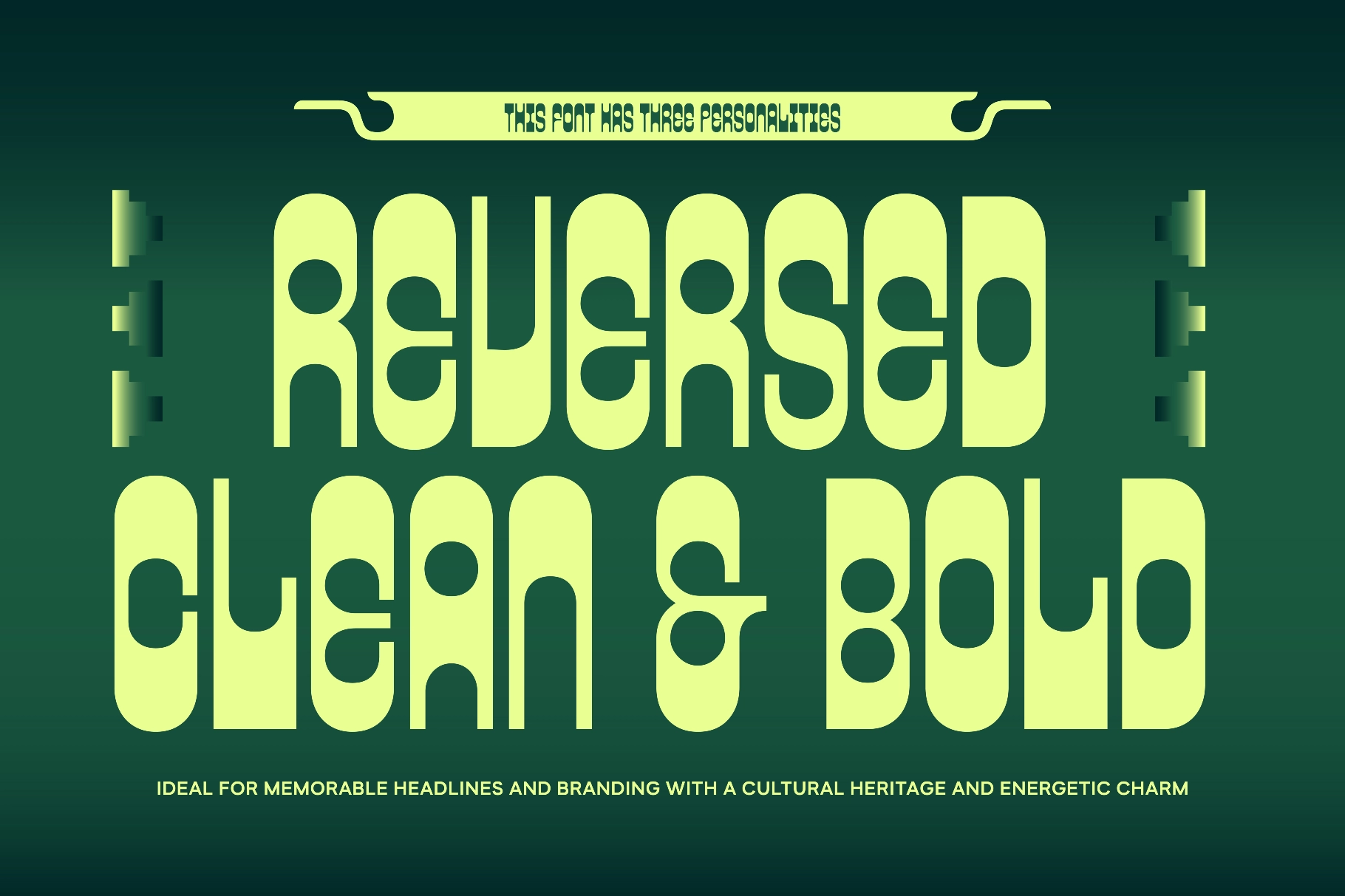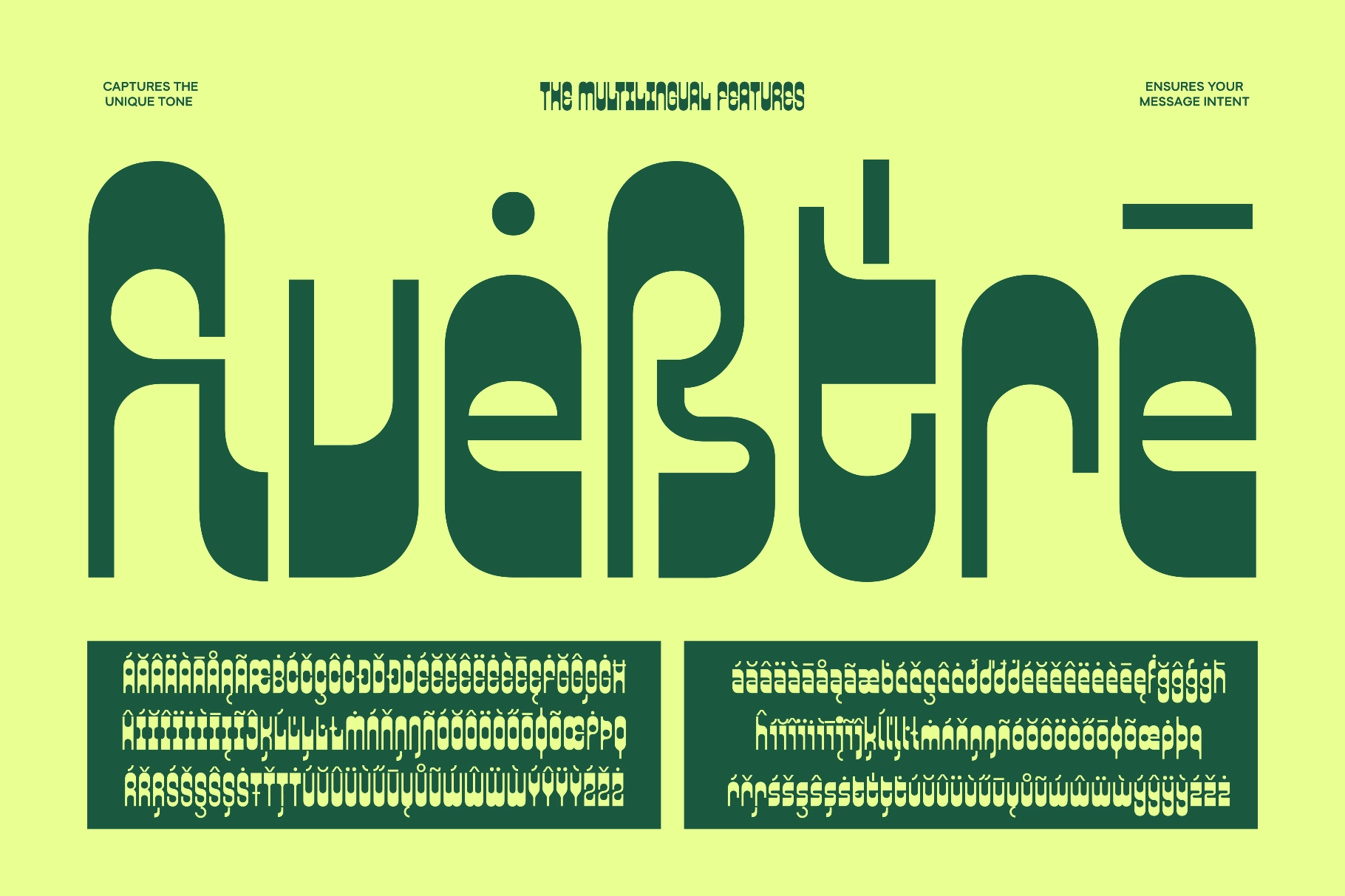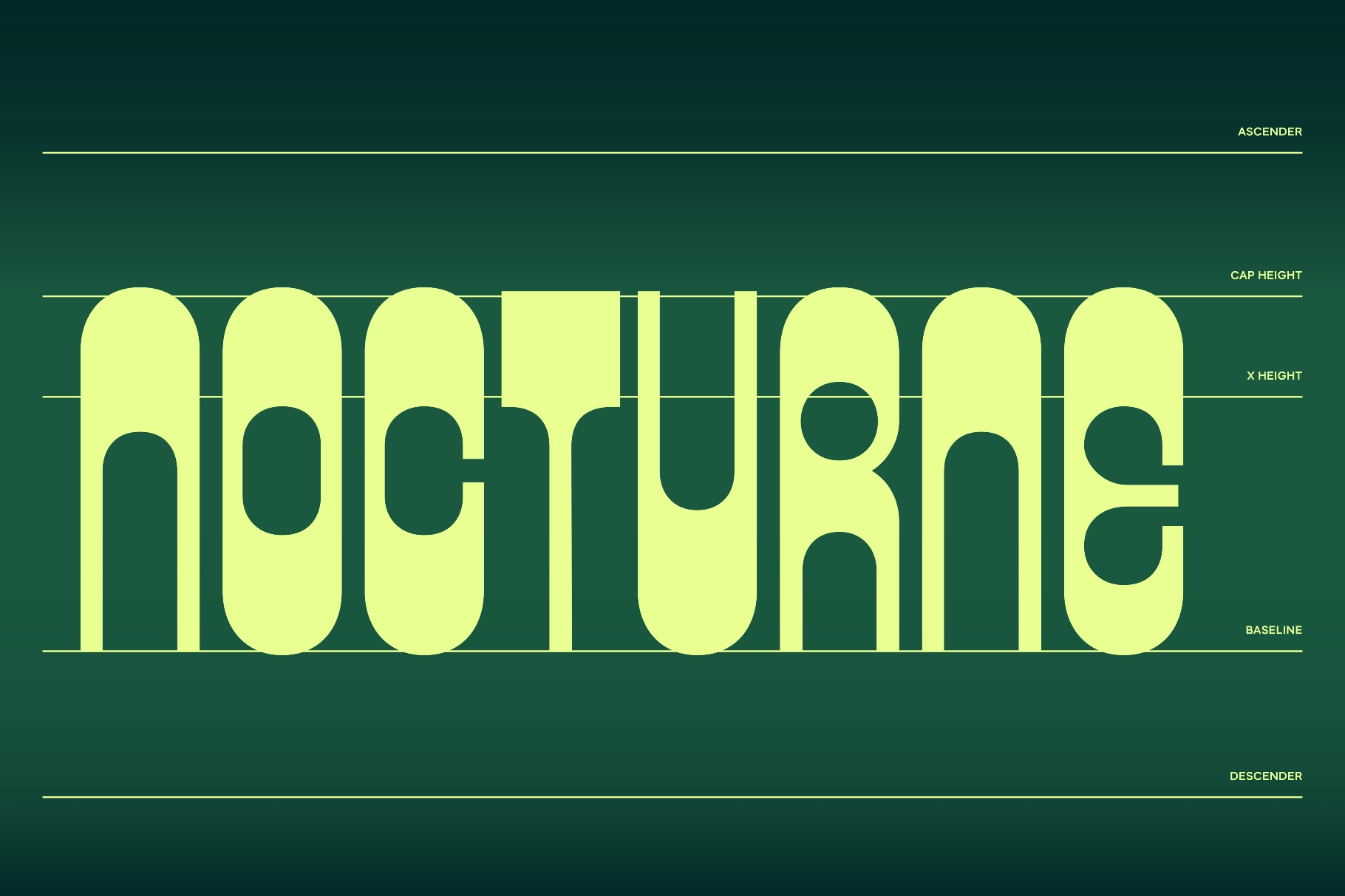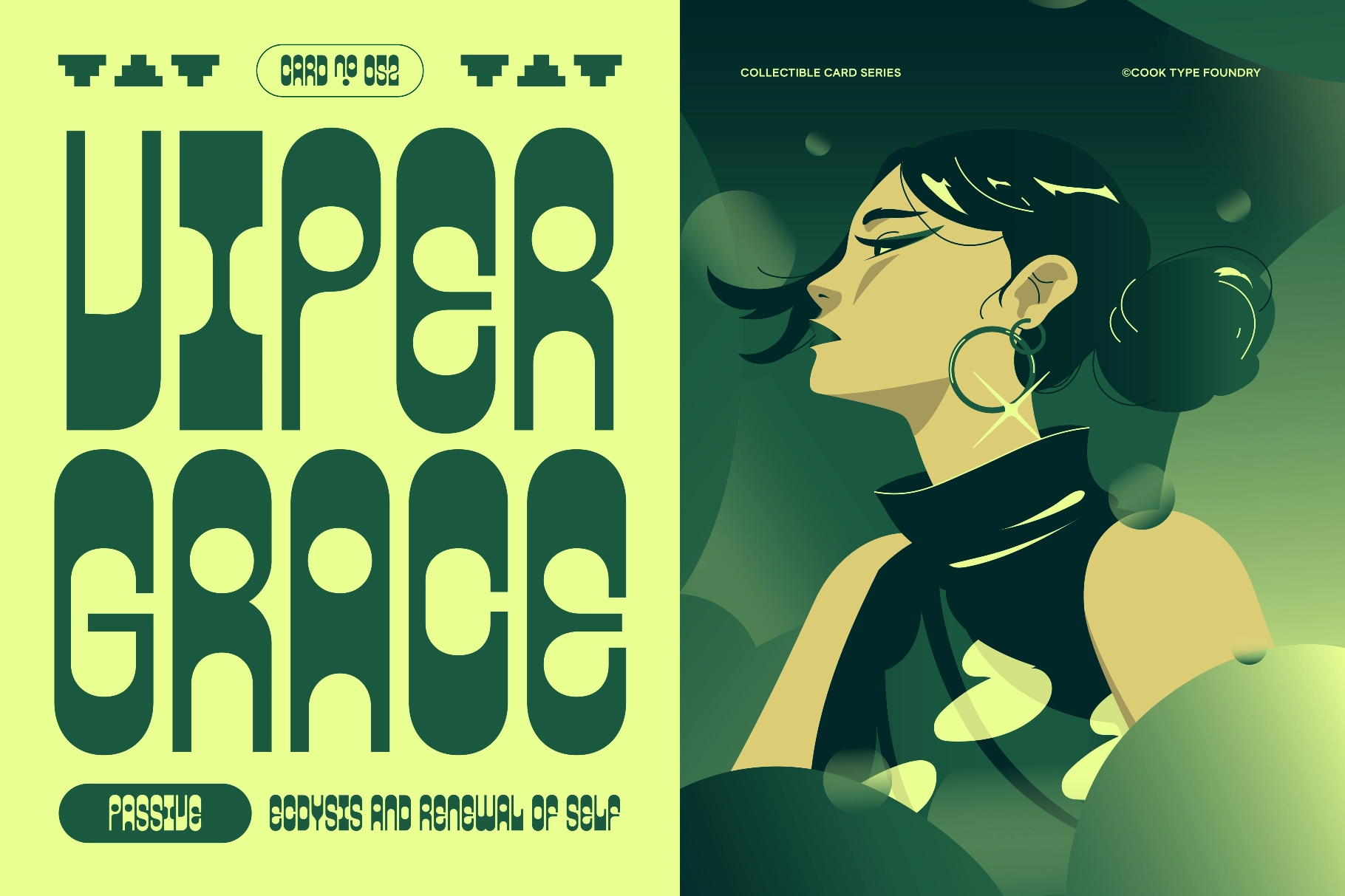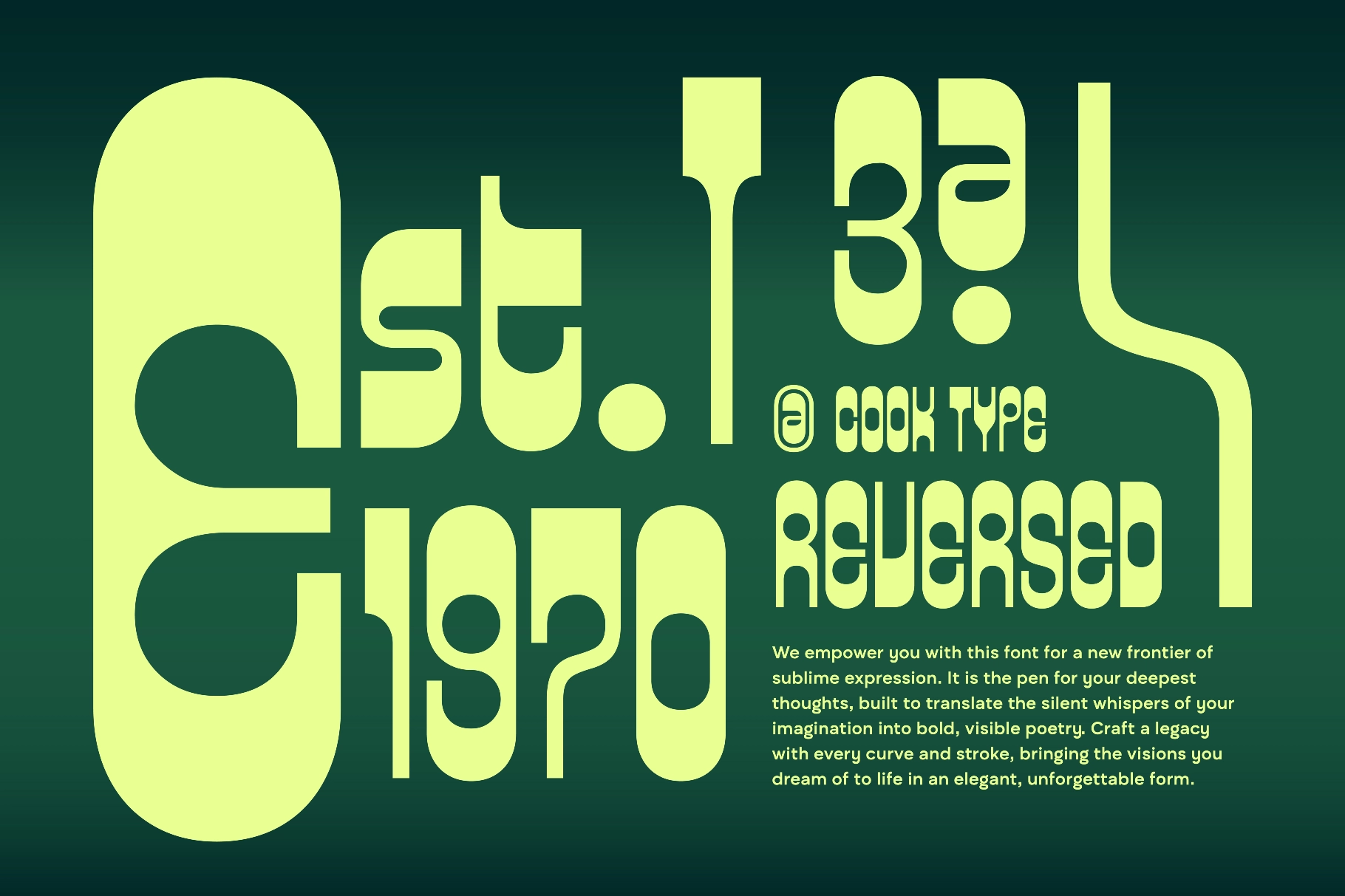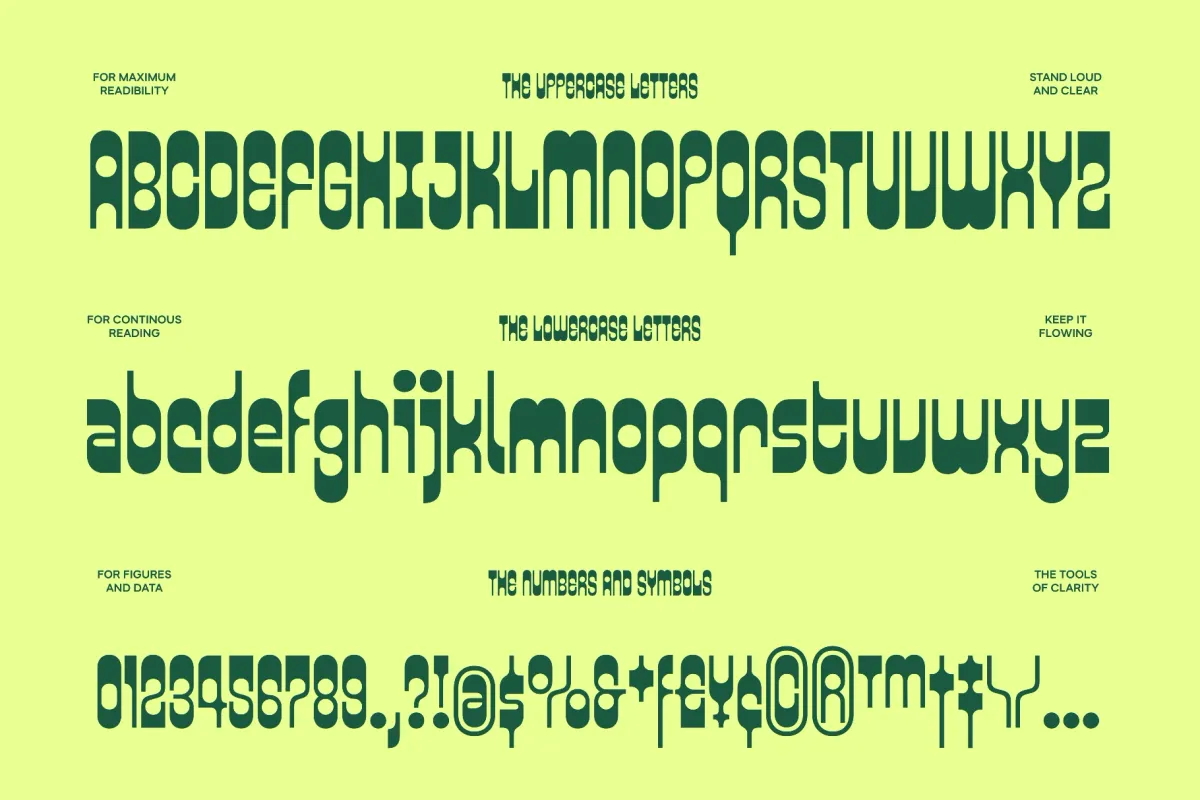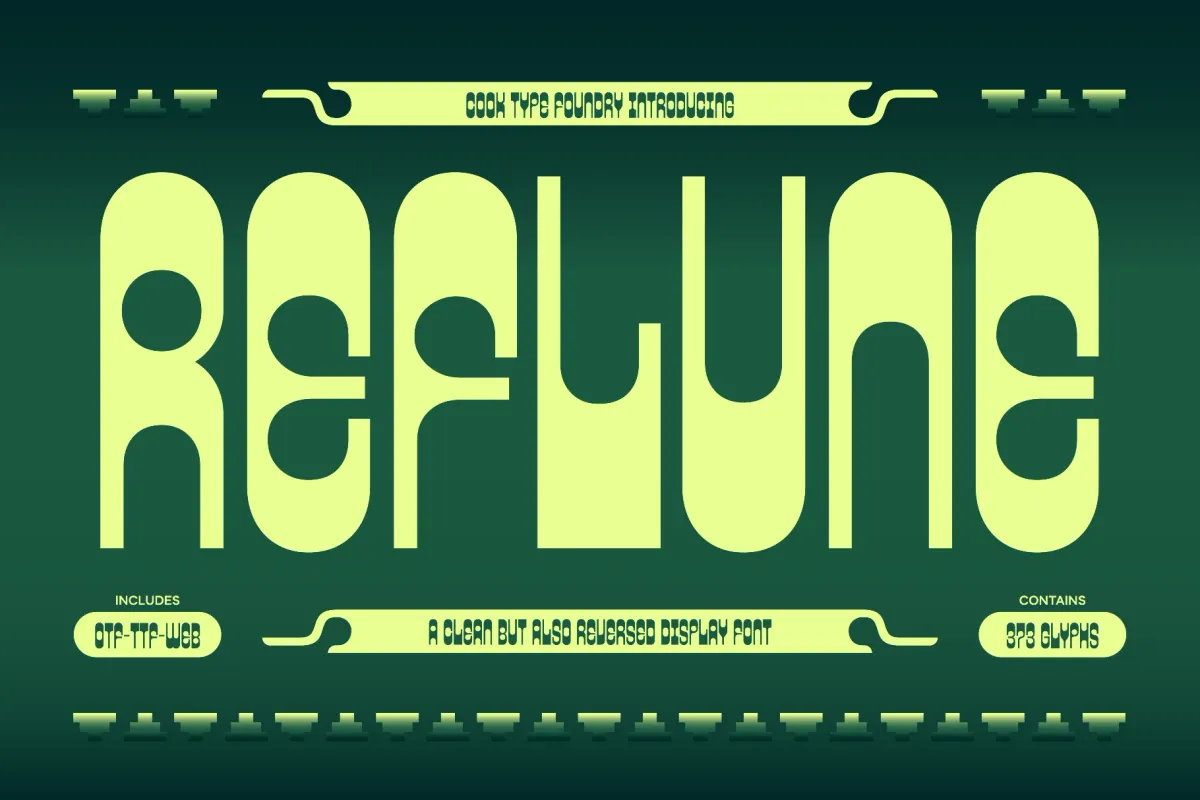
Reflune - Reversed Contrast Font
Reflune
Reflune is a modern display font with a reverse-contrast style, featuring tall, clean letterforms and unique geometric shapes. With its experimental yet refined character, it’s ideal for headlines, posters, branding, and contemporary design compositions.